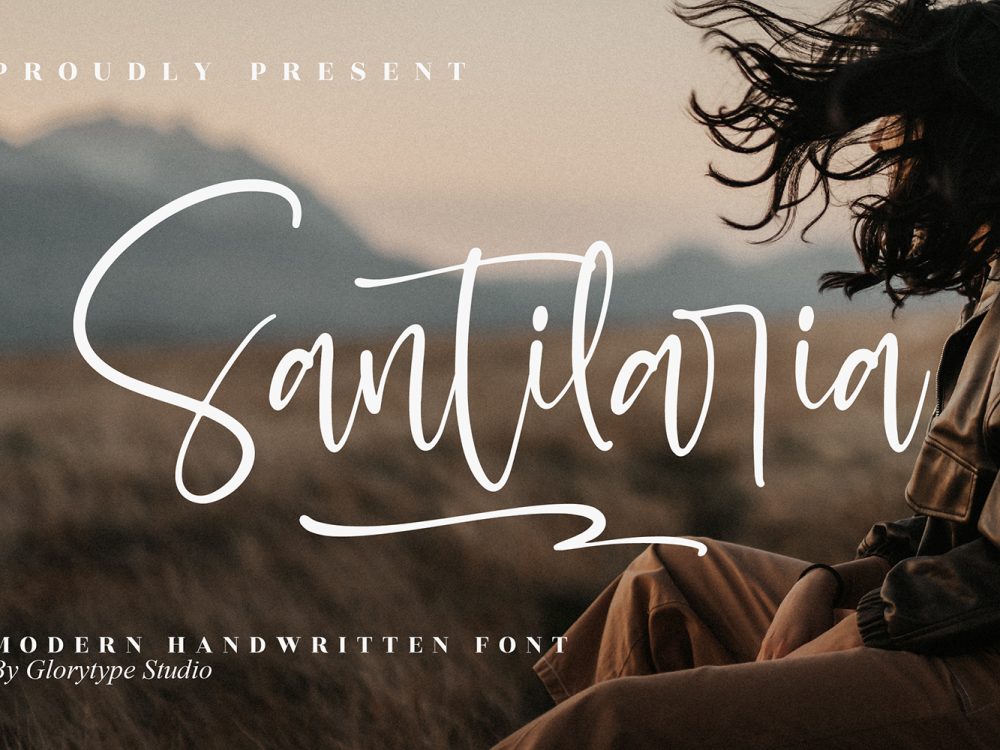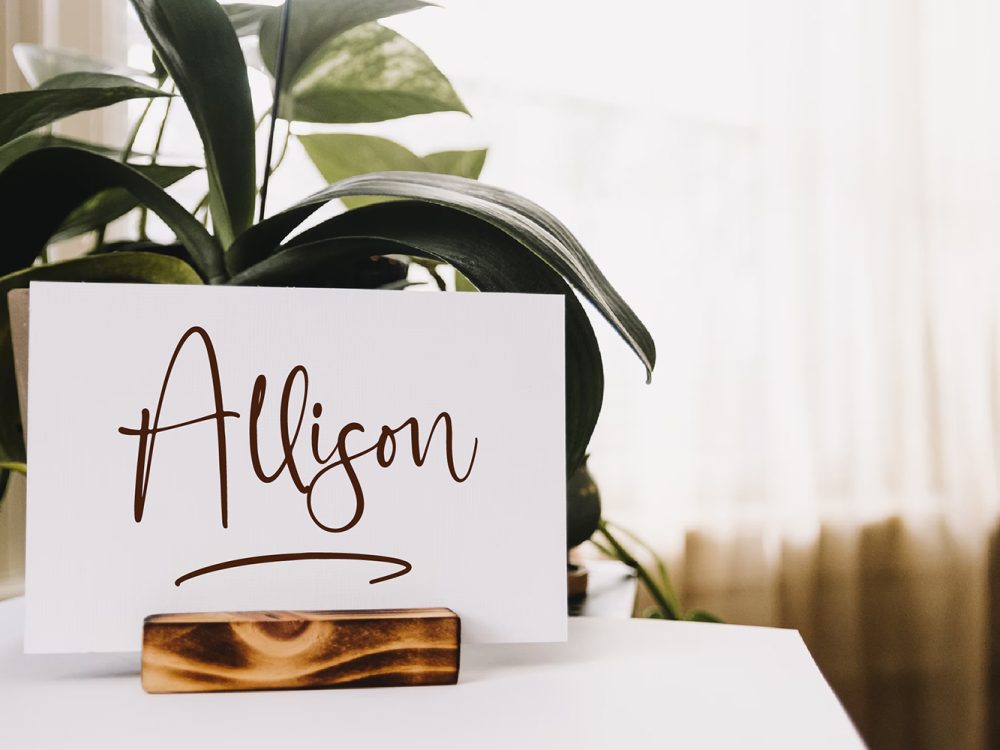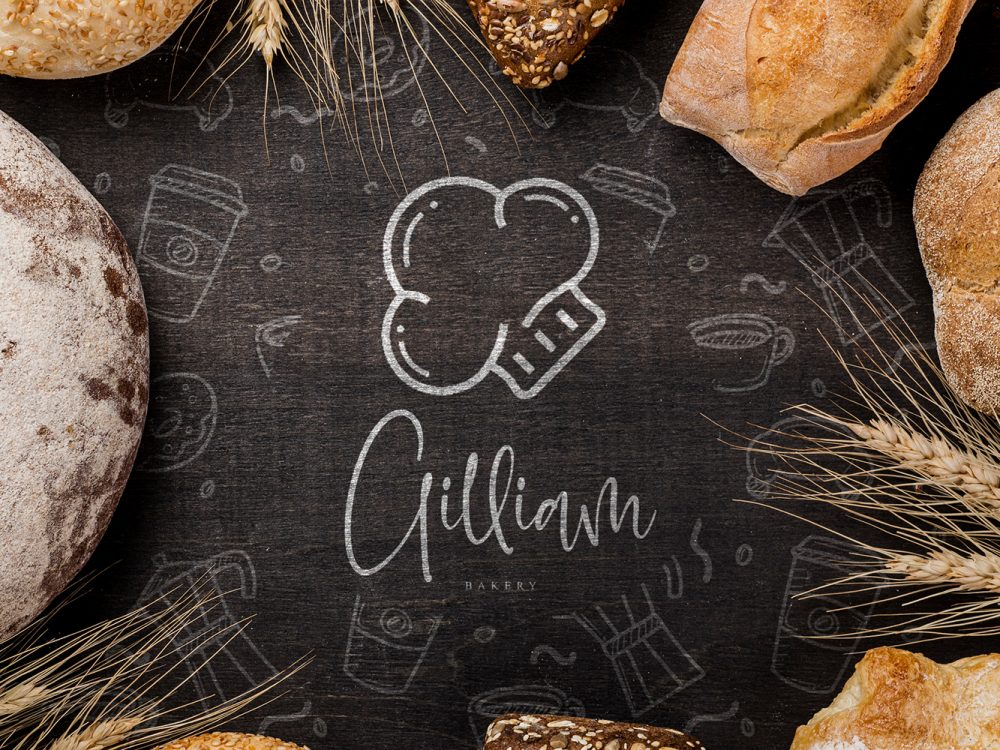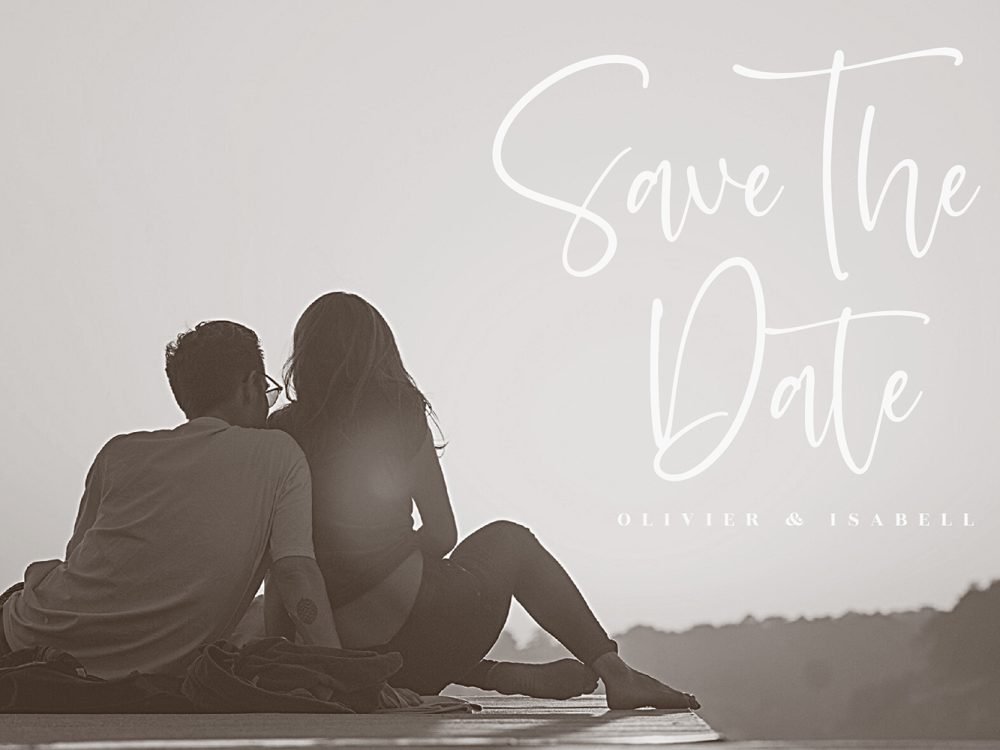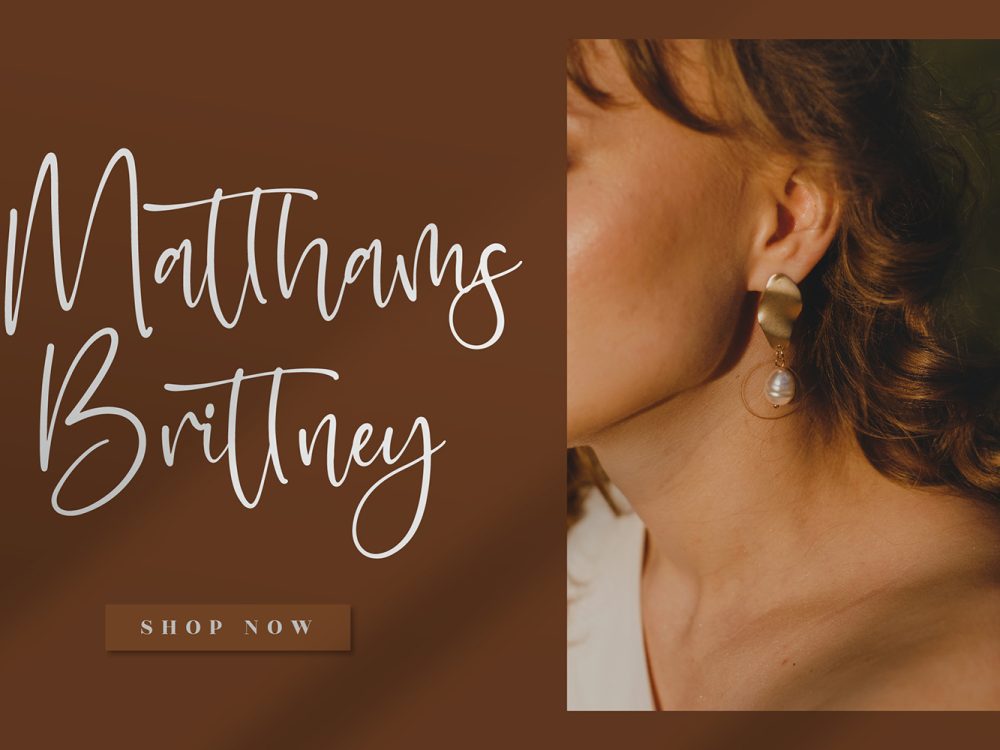
Santilaria Free Font
Experience Santilaria Free Font, a captivating and enduring handwritten typeface. The optimal selection for crafting attention-grabbing logos, branding elements, and memorable quotes. Each letter boasts a distinct and exquisite flair, breathing life into your designs with an unparalleled touch of charm. If you like it don’t forget to check out the full version.